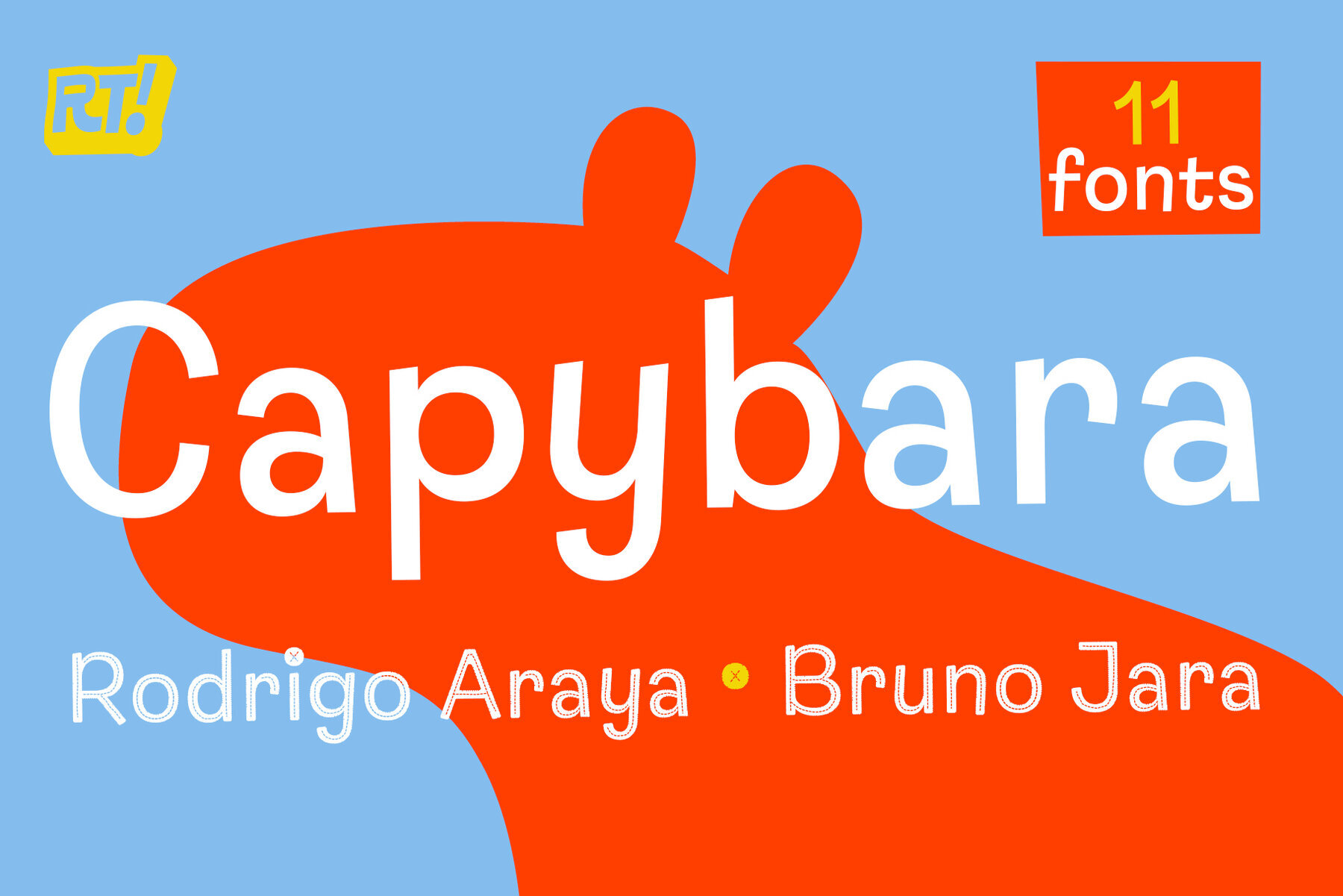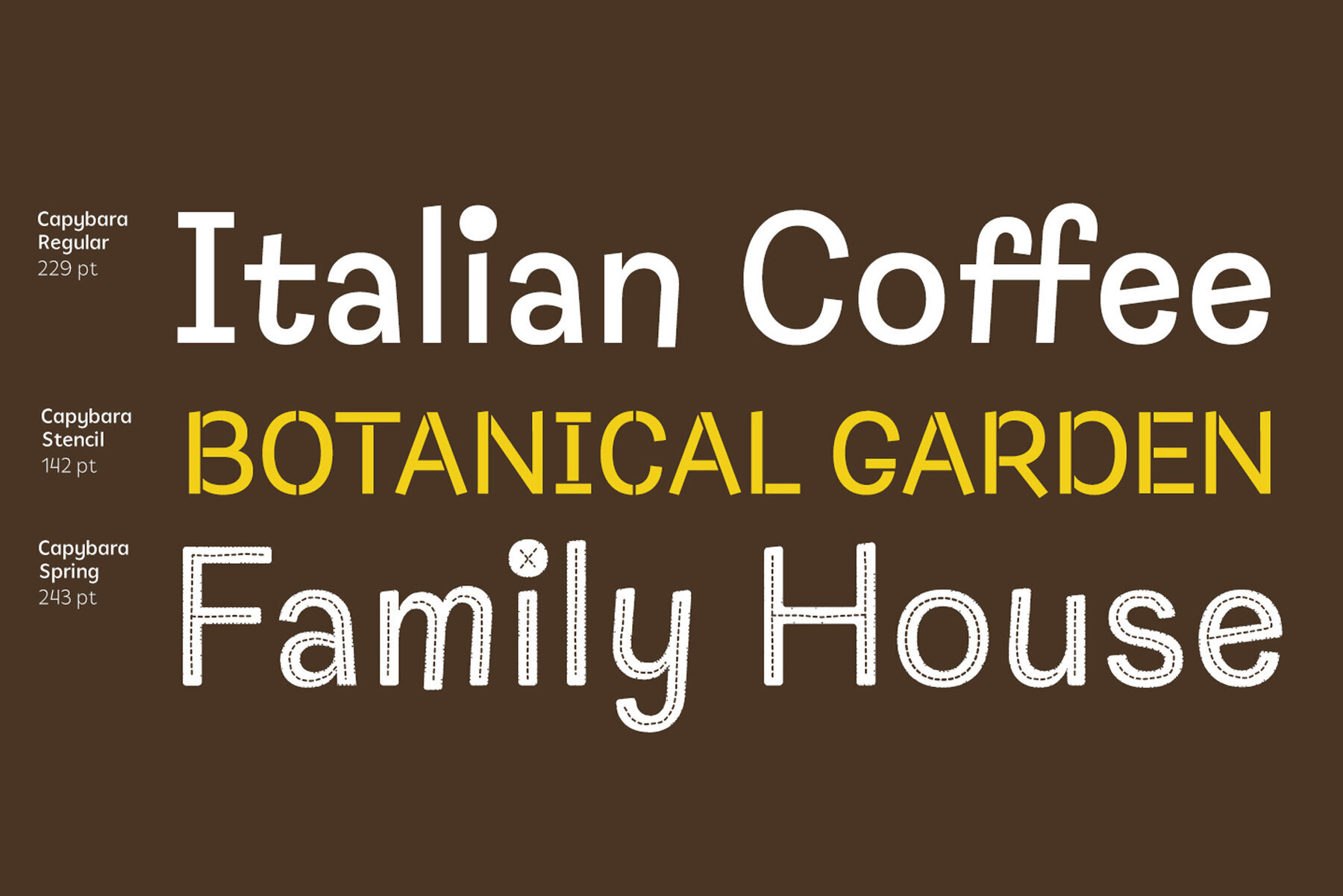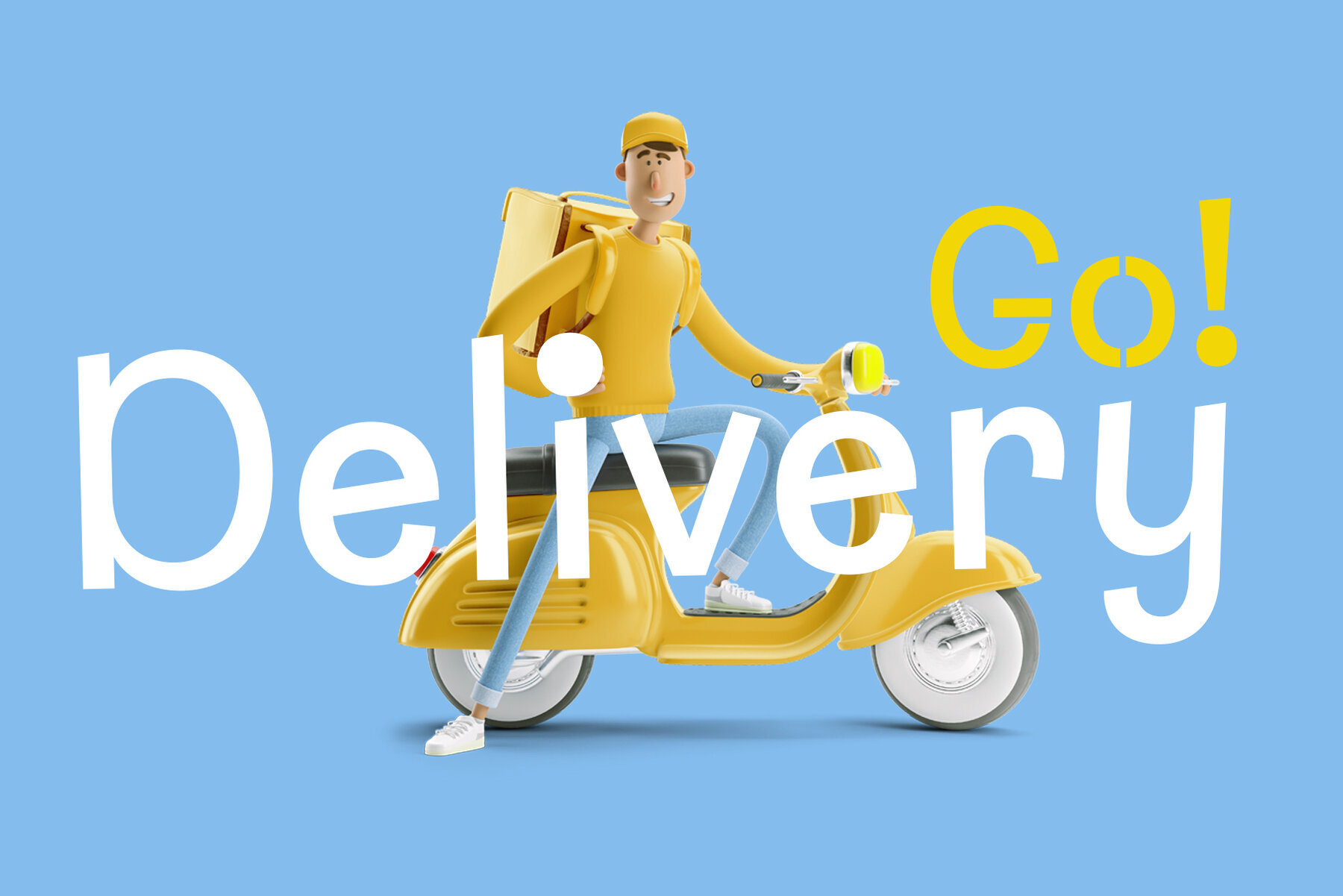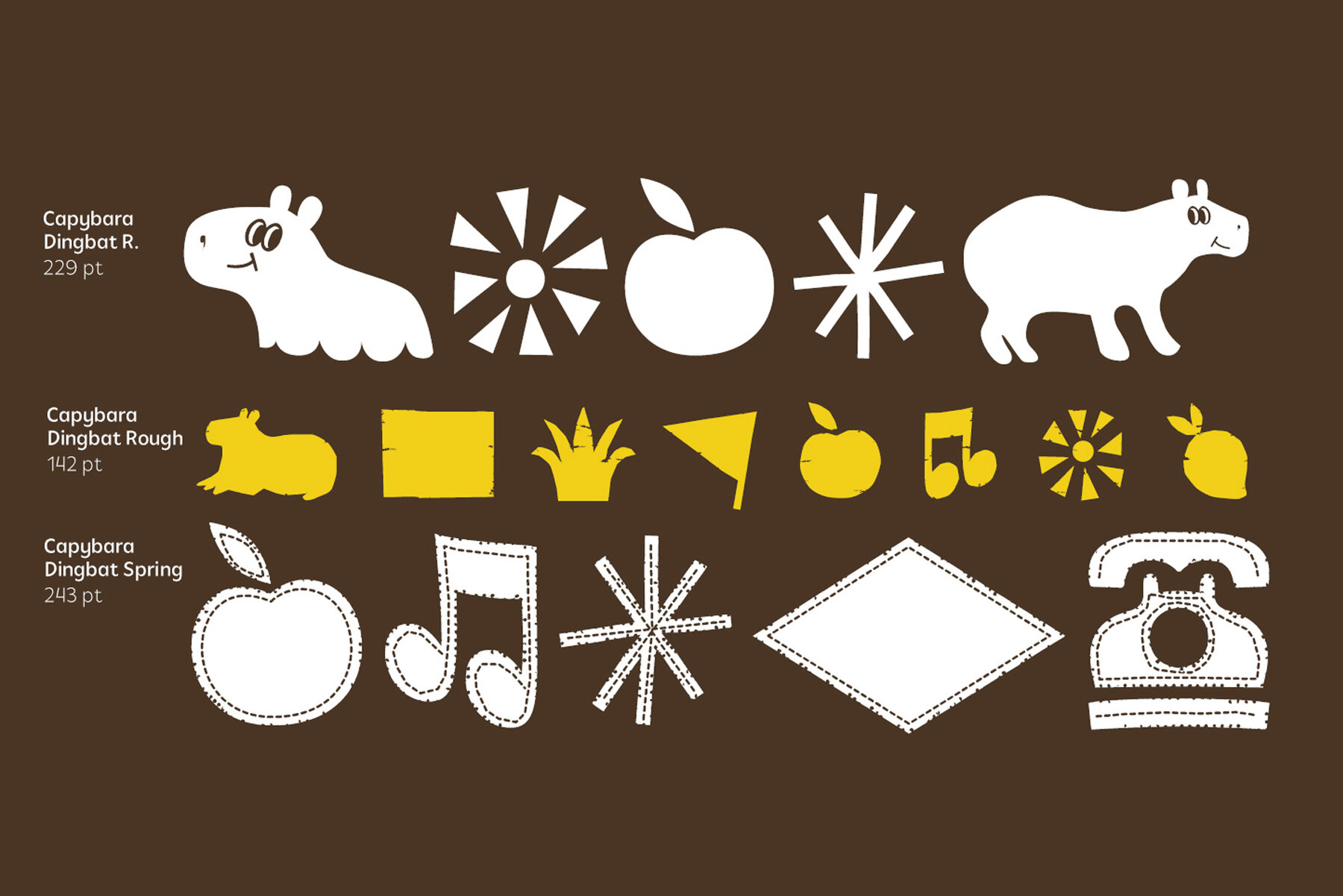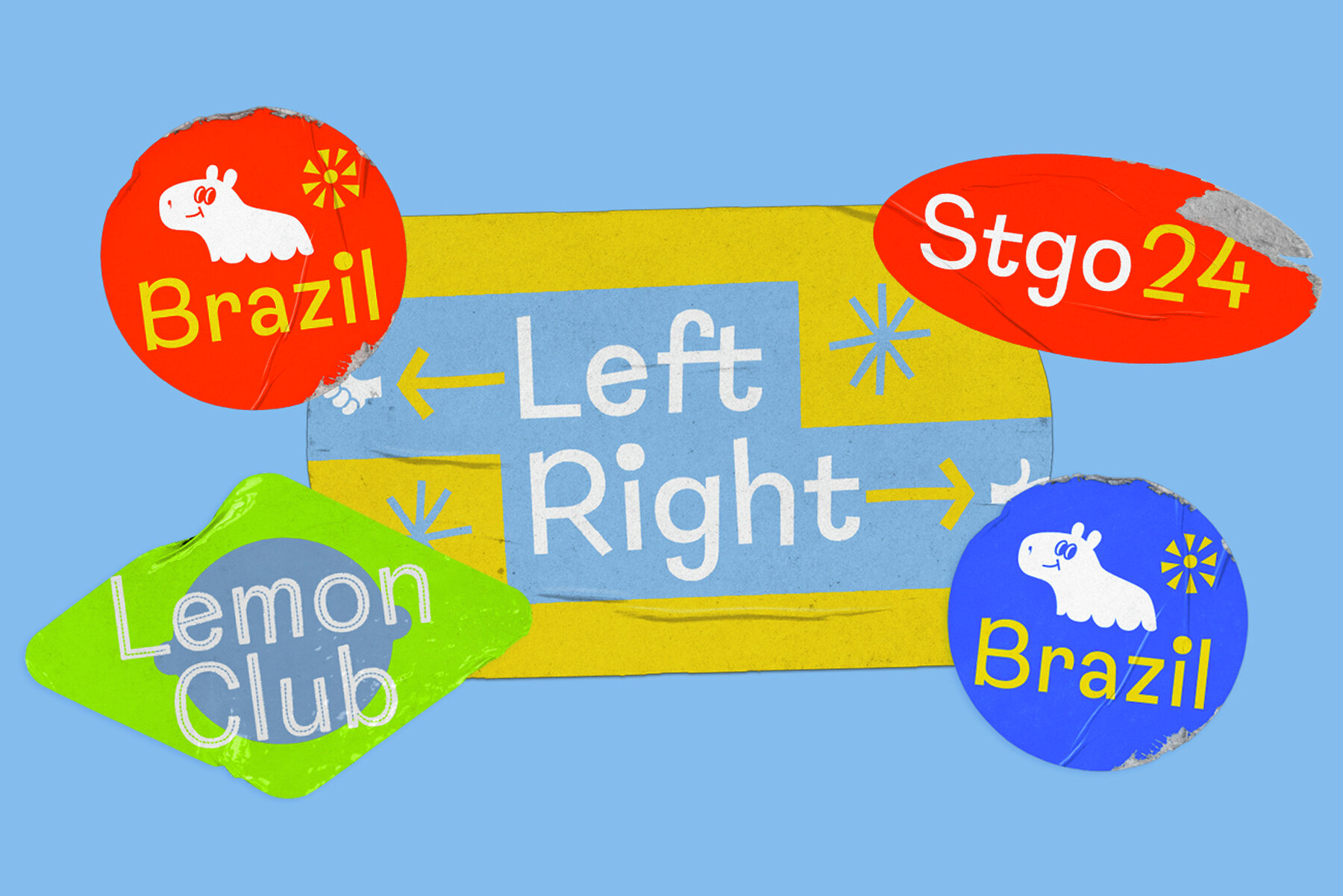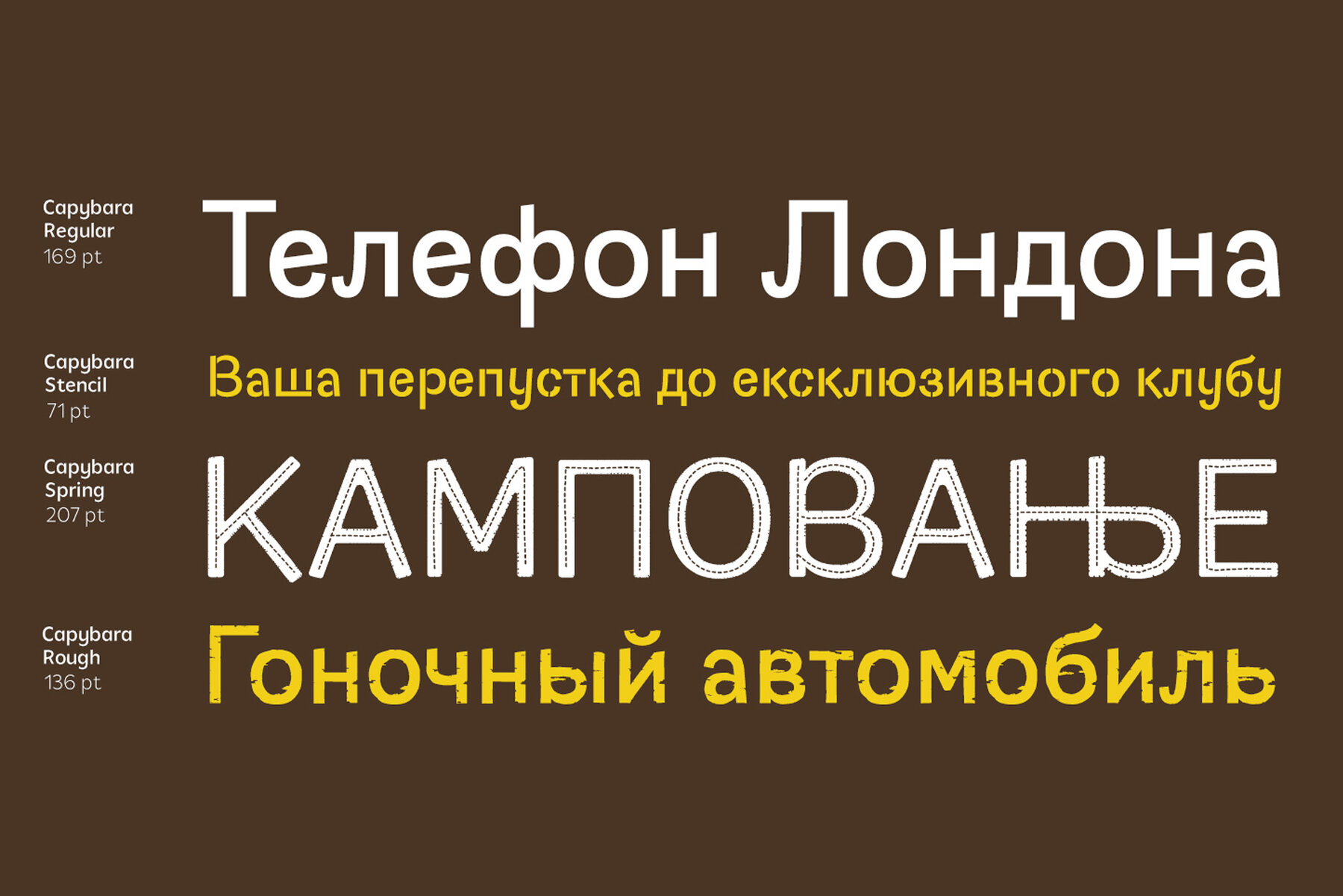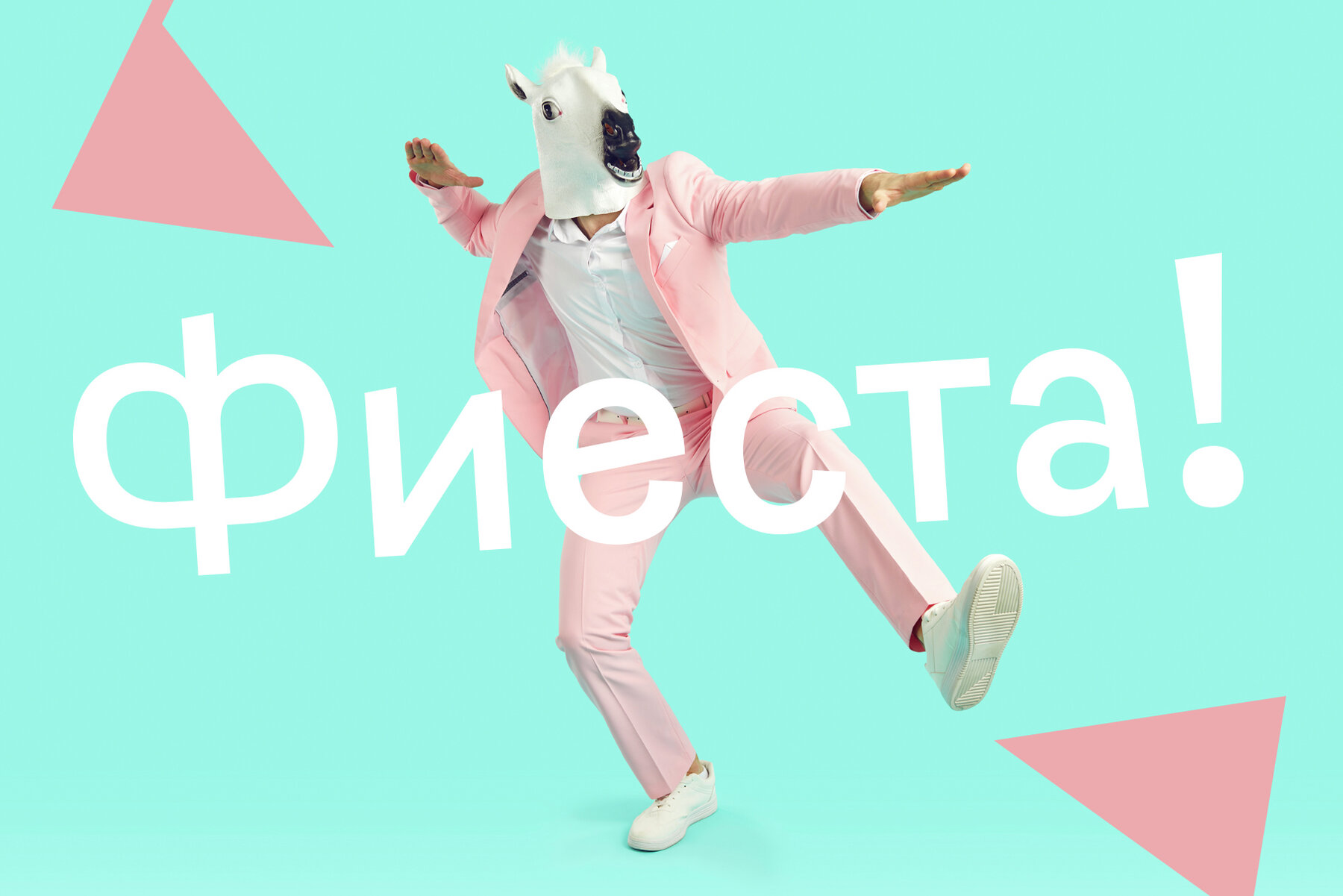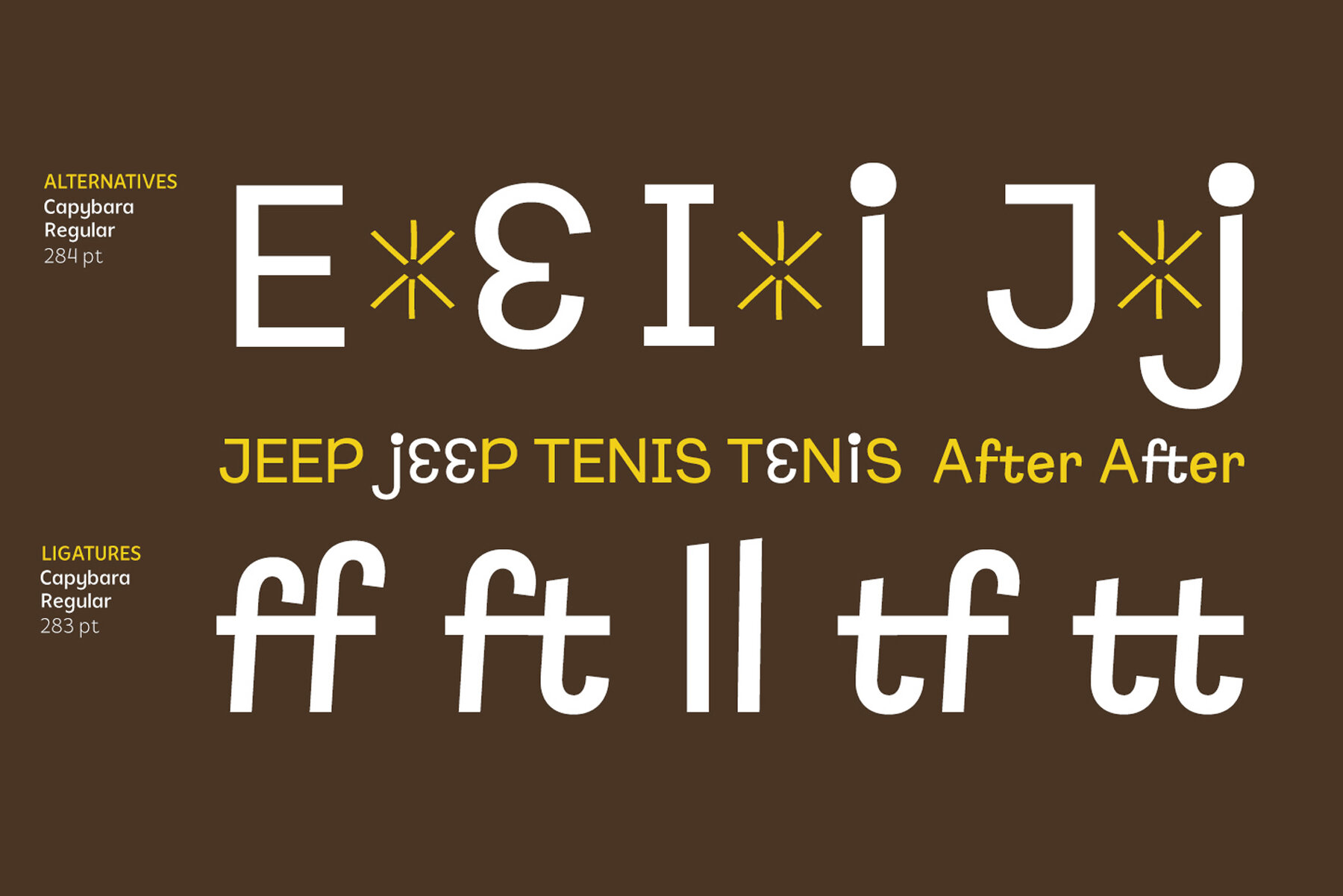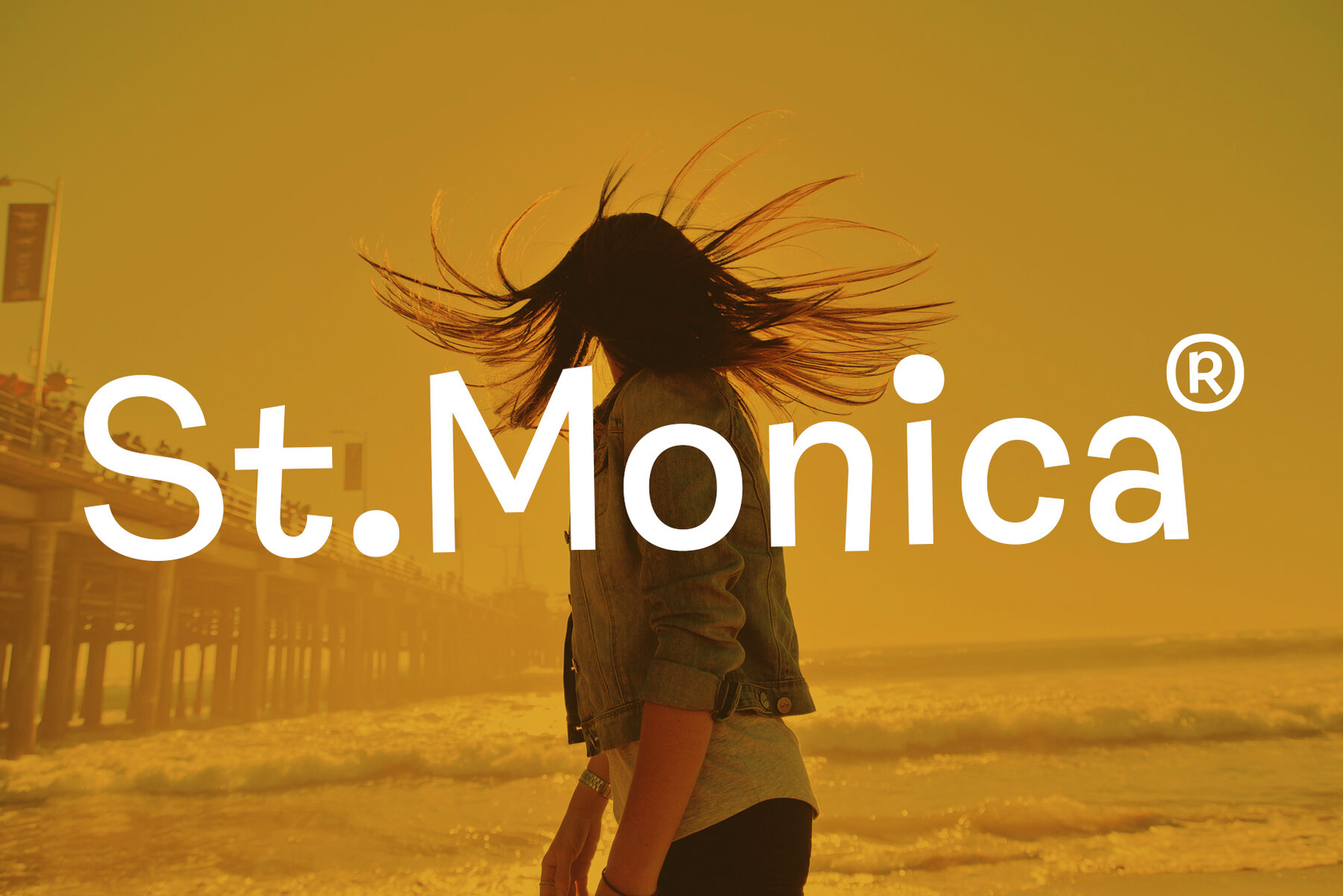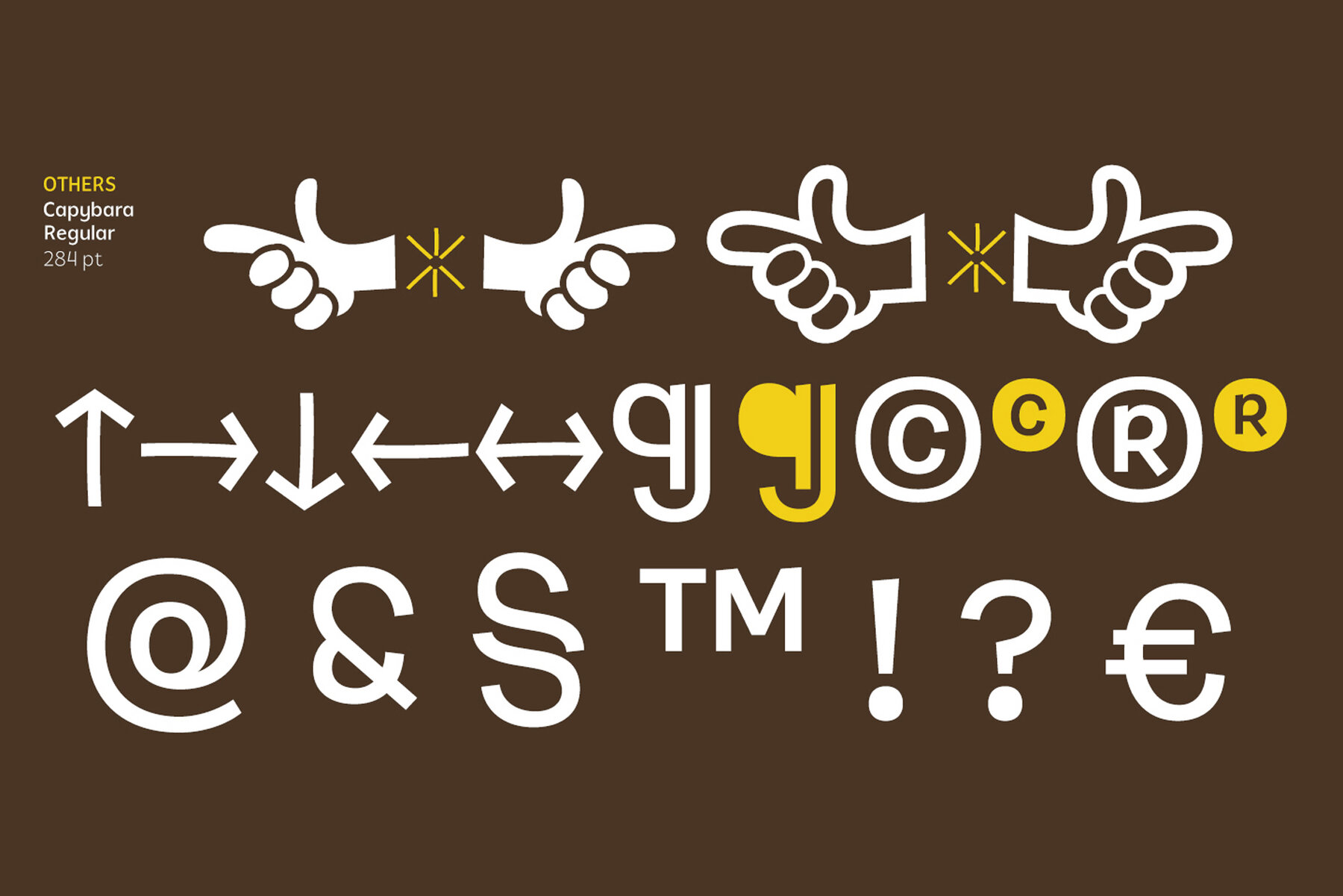
Capybara Font
Capybara is a lively, thin typeface that exudes a playful and informal feel. Ideal for children's titles, logos, and youth-oriented designs, it brings a unique charm to any project. With a versatile range of styles including Stencil, Rough, and Spring, designers can creatively mix and match to suit various themes.
This typeface goes beyond basics by offering a comprehensive character set, which includes the Cyrillic alphabet, alternatives, ligatures, and an assortment of Dingbats and Catchwords. Whether you're aiming for a whimsical touch or a casual, fun aesthetic, Capybara provides the flexibility and character needed to make your designs stand out.